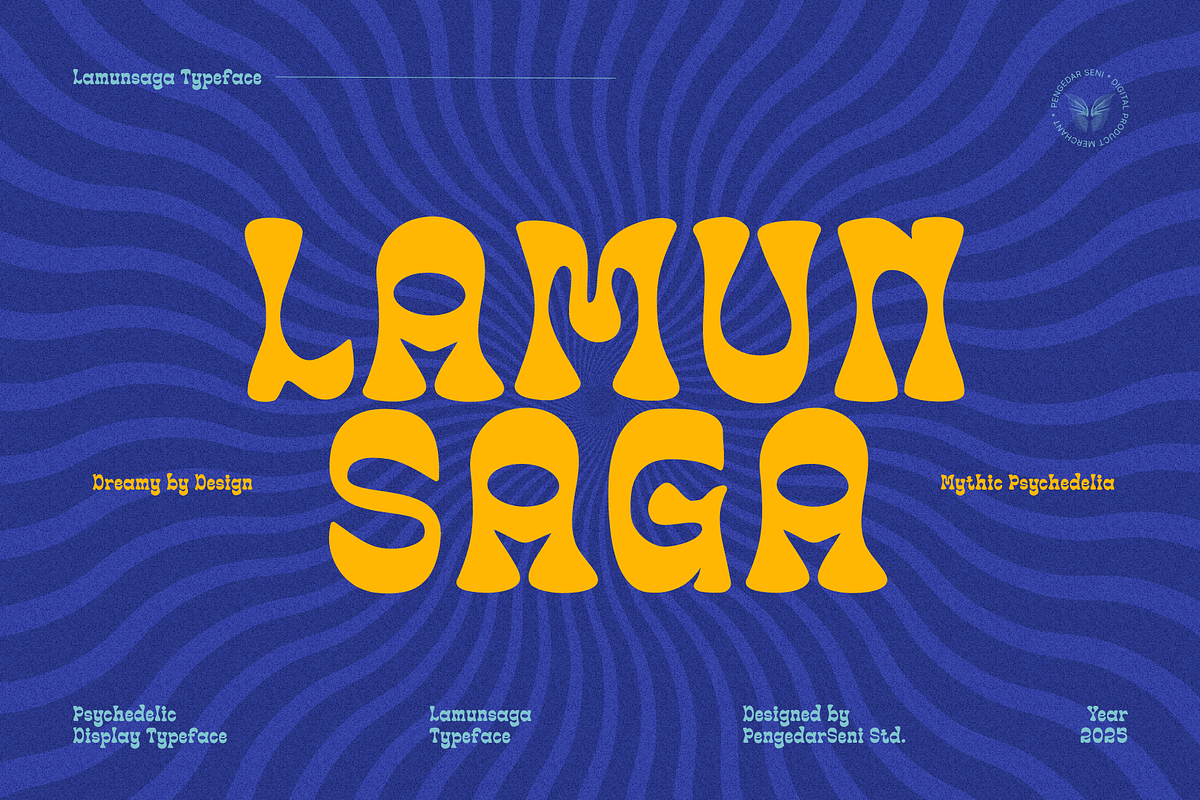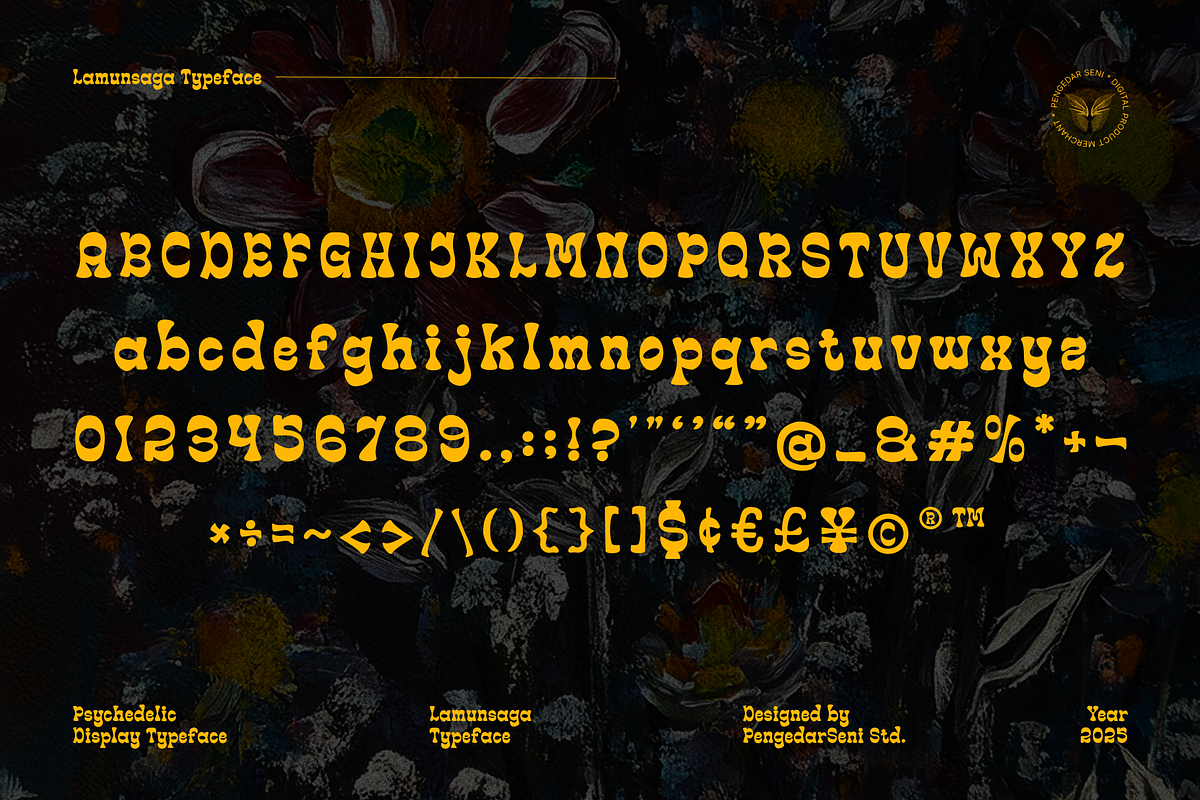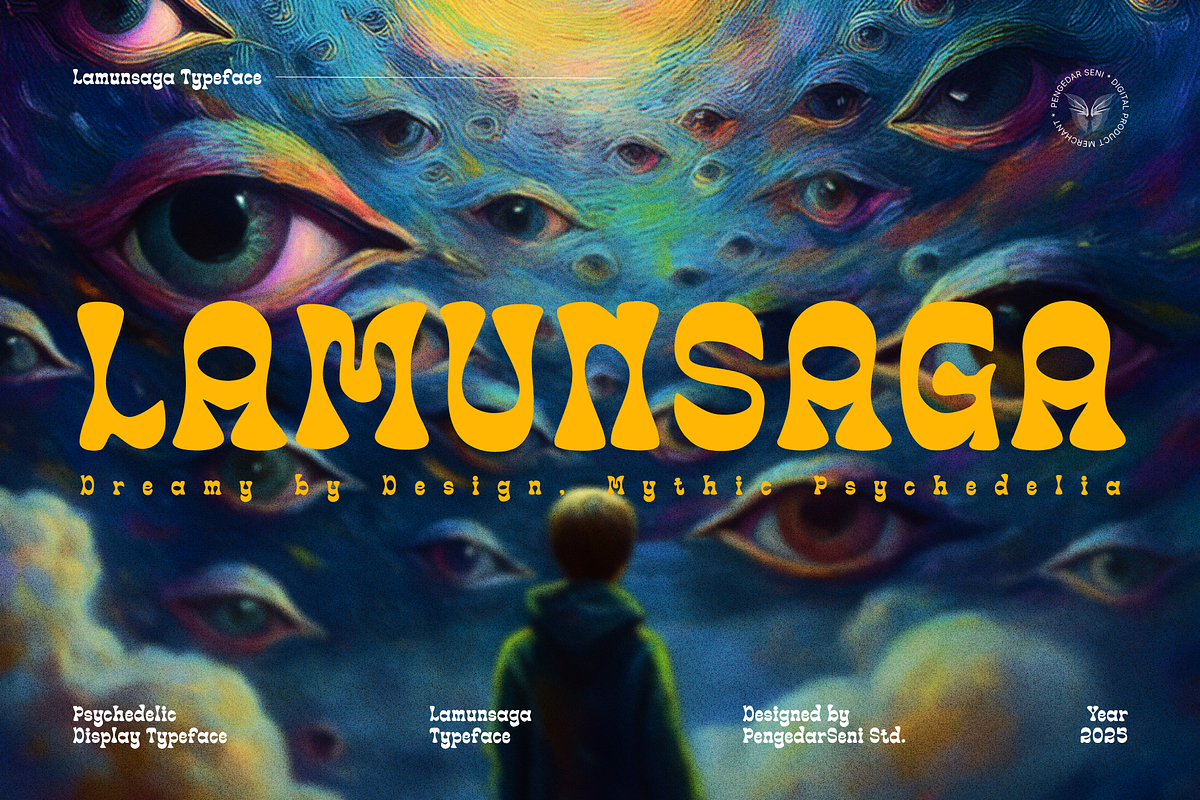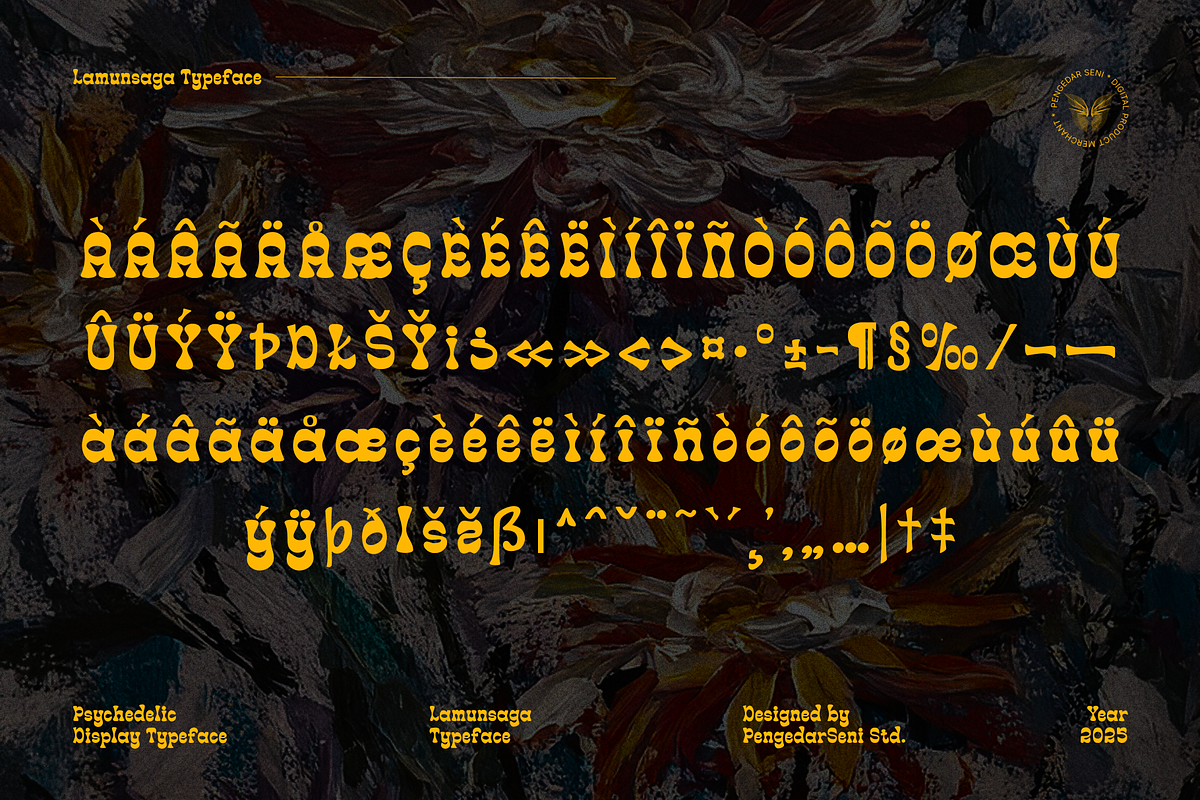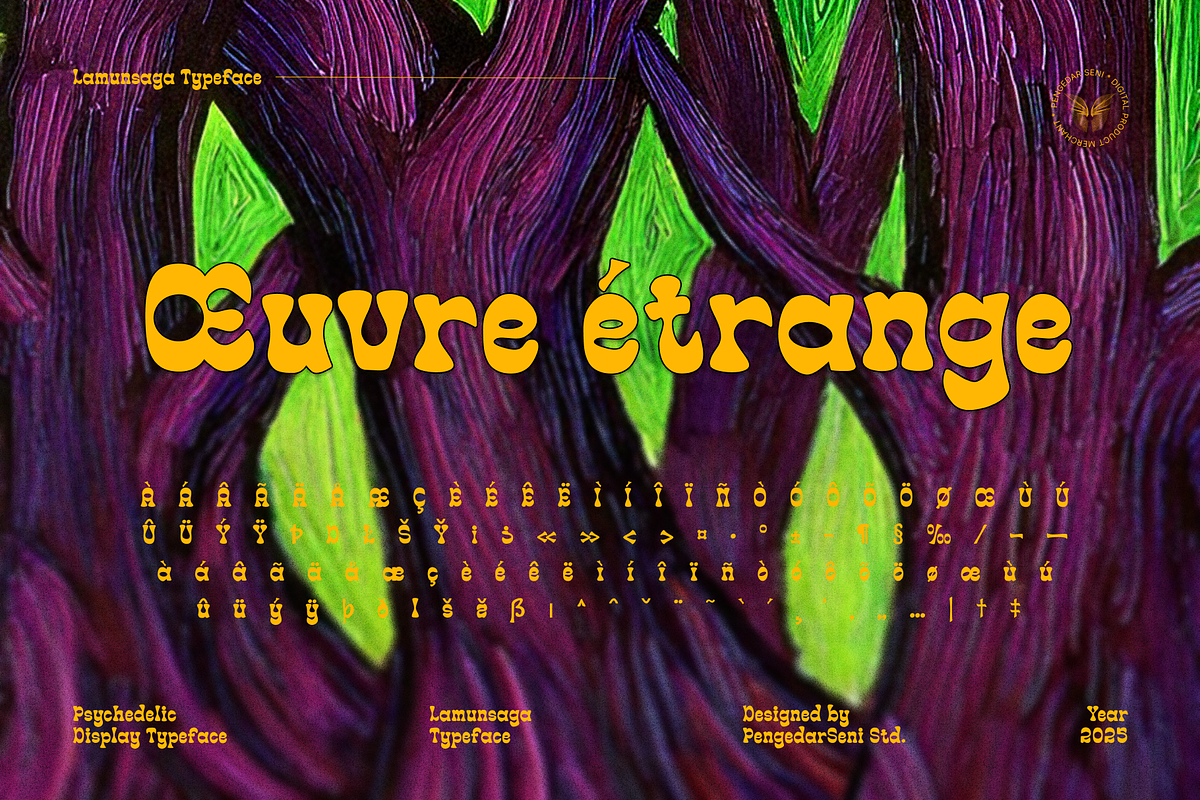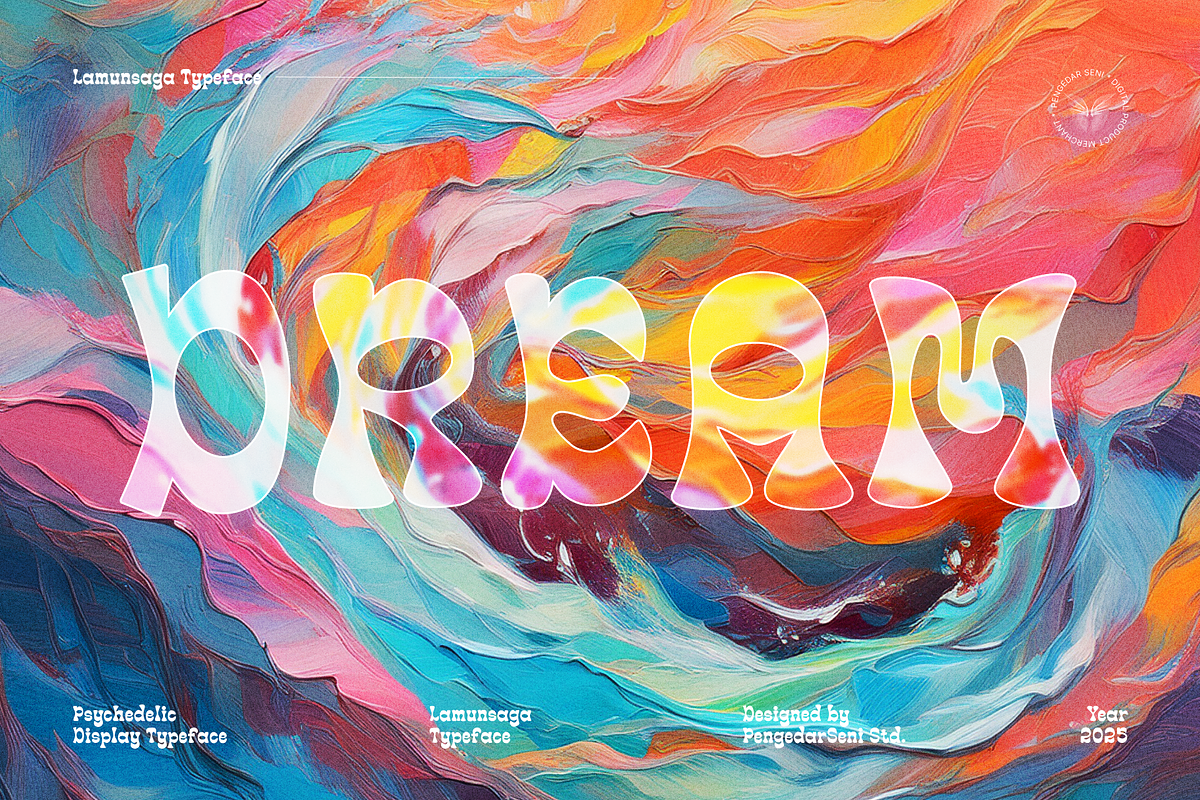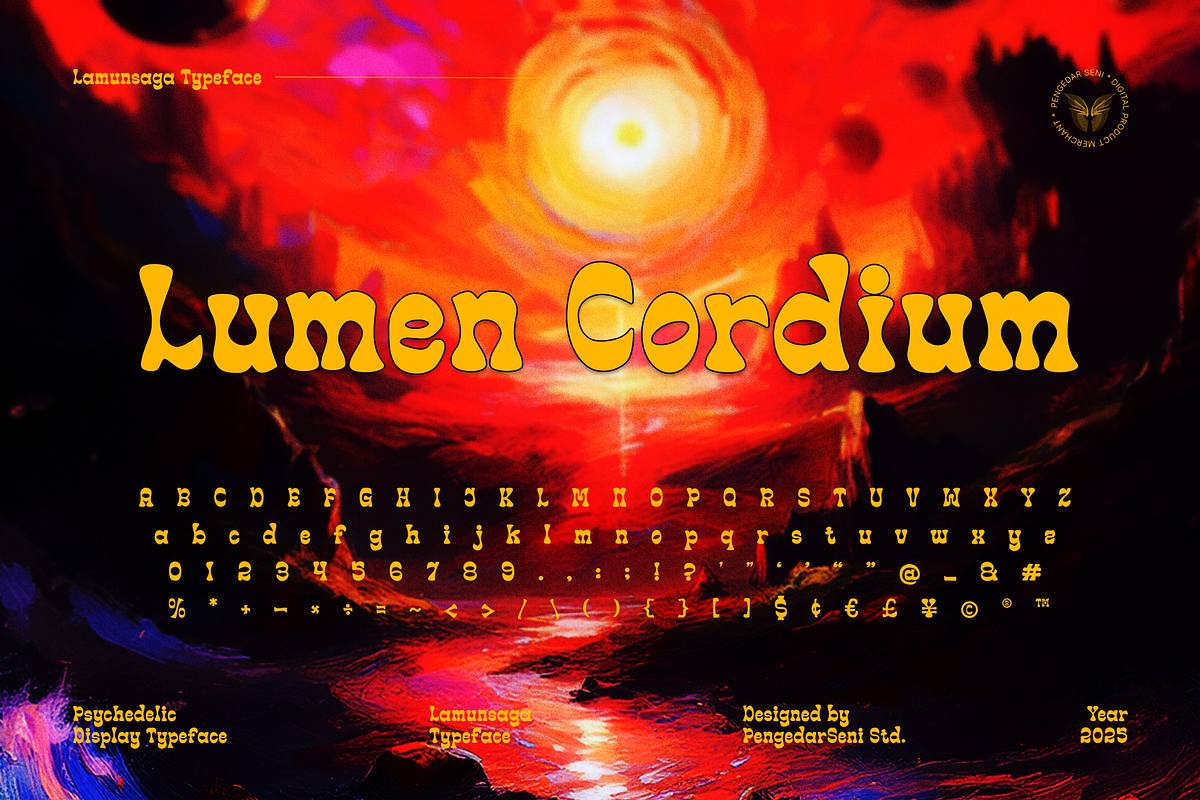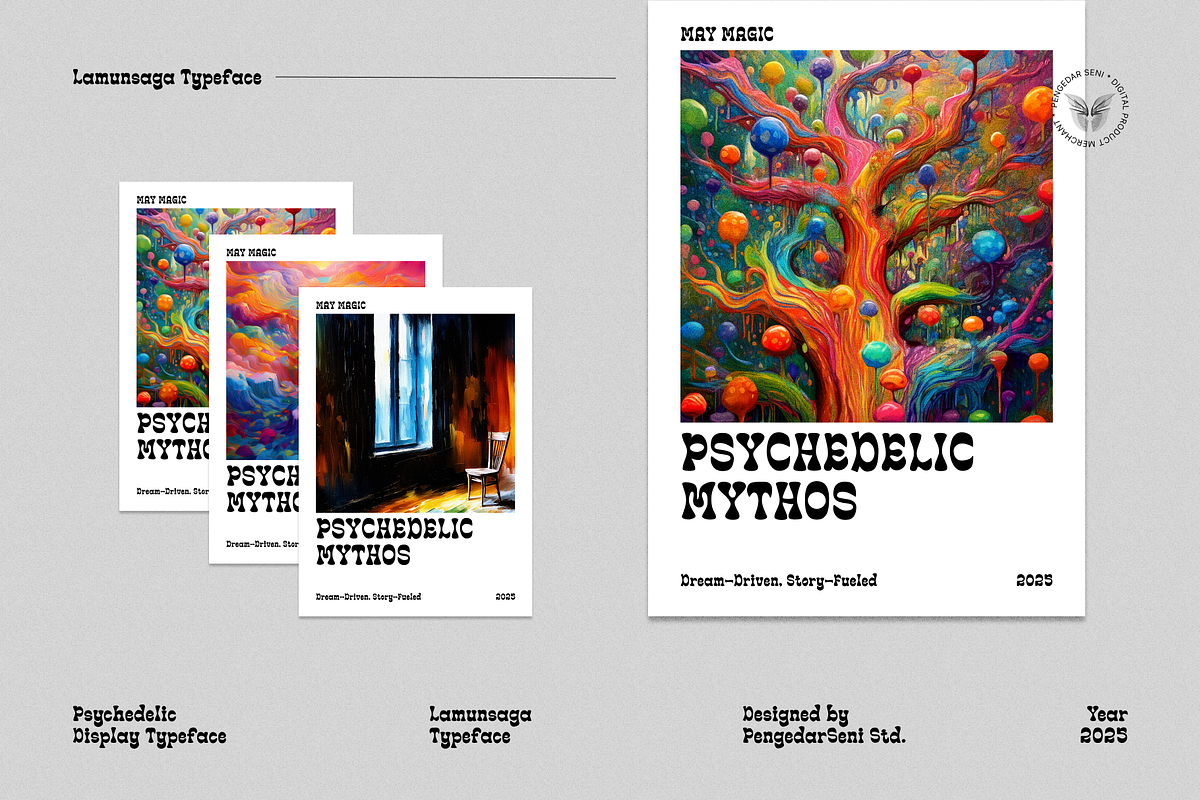
Lamunsaga – Psychedelic Typeface
LAMUNSAGA – Psychedelic Display Typeface Inspired by Daydreams
Dreamy by Design, Mythic Psychedelia
LAMUNSAGA is a psychedelic display typeface that stretches daydreams into epic visual narratives. A sequel to the whimsical LAMUN, this typeface deepens the story — blending the hypnotic allure of lamunan with the grandeur of a saga. Inspired by the Indonesian word lamun (daydream) and saga (a long, legendary tale), LAMUNSAGA is designed for creators who turn fleeting thoughts into timeless design myths.
With its warped letterforms, poetic distortions, and dramatic presence, LAMUNSAGA transforms your text into a hallucinatory voyage through nostalgia, fantasy, and rebellion.
Whether you're crafting concept album covers, immersive posters, fashion editorials, or esoteric zines, LAMUNSAGA gives your typography a mythic depth — as if your words are dreaming, and the dreams are telling stories.
The Meaning Behind LAMUNSAGA
🌀 "Lamunan" (Indonesian) — A state of drifting into thoughts, fantasies, or idle dreaming. 📖 "Saga" (English/Scandinavian) — A long, epic narrative often rooted in myth and legacy. ✨ "Lamun" (Sundanese) — The word for “if” or “what if,” invoking a sense of infinite possibilities and hypothetical wonder — the birthplace of every great story.
🔮 LAMUNSAGA is the meeting point between whimsical imagination, timeless legend, and speculative wonder. A typographic journey through altered states, imagined histories, and the curious question of what if.
Why Choose LAMUNSAGA?
✅ Psychedelic Mythos – Designed for visual storytelling that’s bold, hypnotic, and culturally rich.
✅ Epic Letter Shapes – Elongated, warped forms evoke grandeur and surrealism in equal measure.
✅ Dream-Driven, Story-Fueled – A perfect marriage of emotional fantasy and conceptual strength.
✅ Statement Display Typeface – Best for covers, campaigns, packaging, fashion, and narrative-based visuals.
✅ Rooted in Culture, Elevated by Imagination – A Southeast Asian-inspired concept taken to global typographic storytelling.
LAMUNSAGA isn’t just a font — it’s an odyssey. Let your words wander, stretch, and rise into epic dreams with a typeface built for modern myths, imagined worlds, and the beauty of what could be.